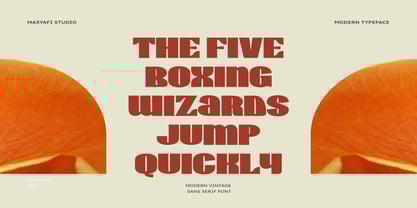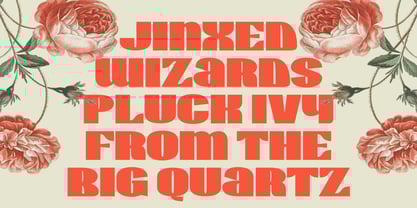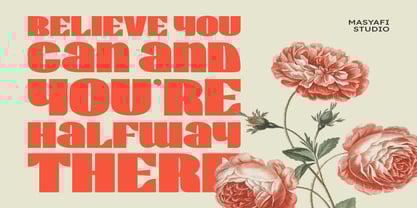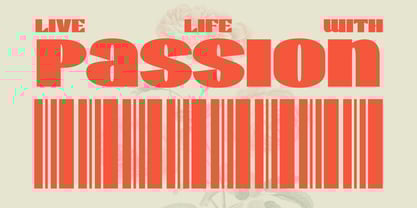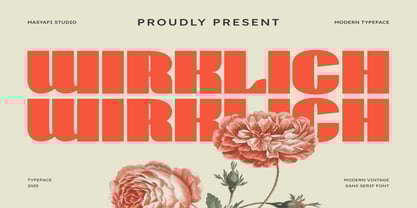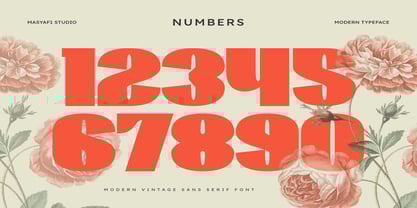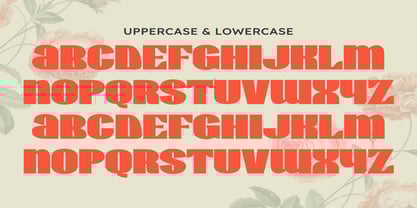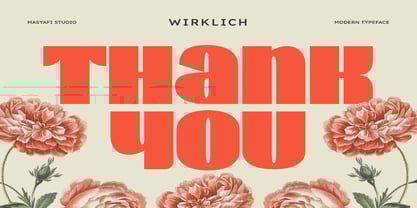
Wirklich
by Masyafi Studio
The Wirklich Font Family was designed by Muhammad Yafinuha and published by Masyafi Studio. Wirklich contains 1 styles.
Wirklich is a grotesk sans serif font with a vintage style. font inspired by vintage minimalist style typography. This font is very suitable for branding, logos, marketing, social media, quotes, business cards, printing, web labels and anything that smells elegant, classic, vintage, minimalist and retro.